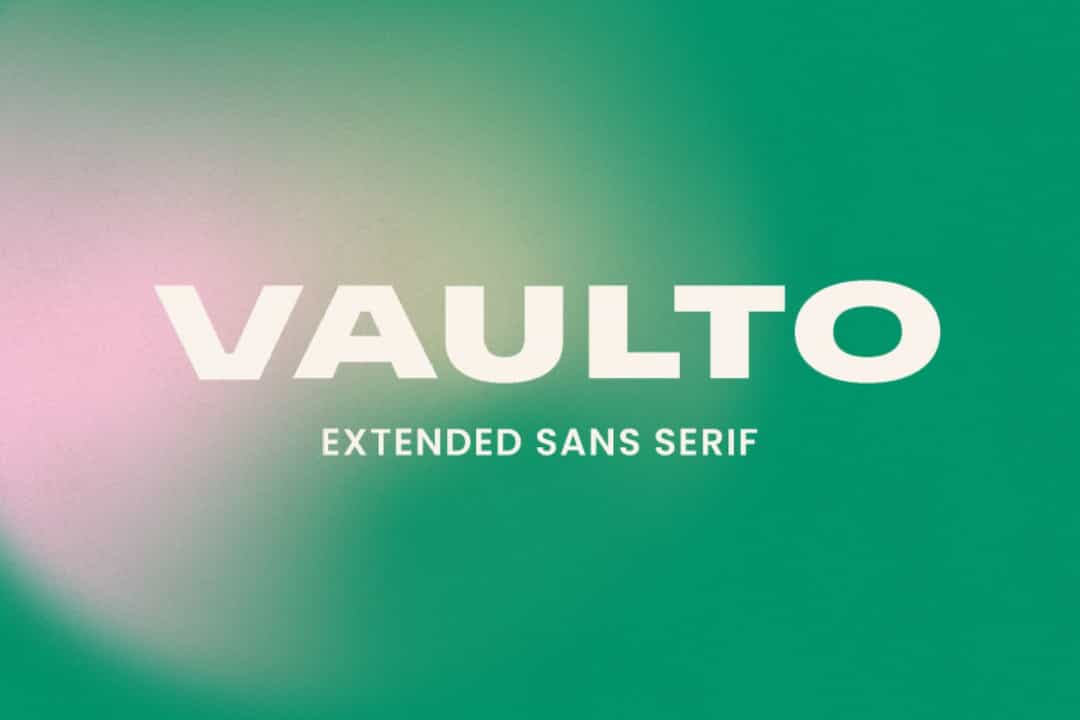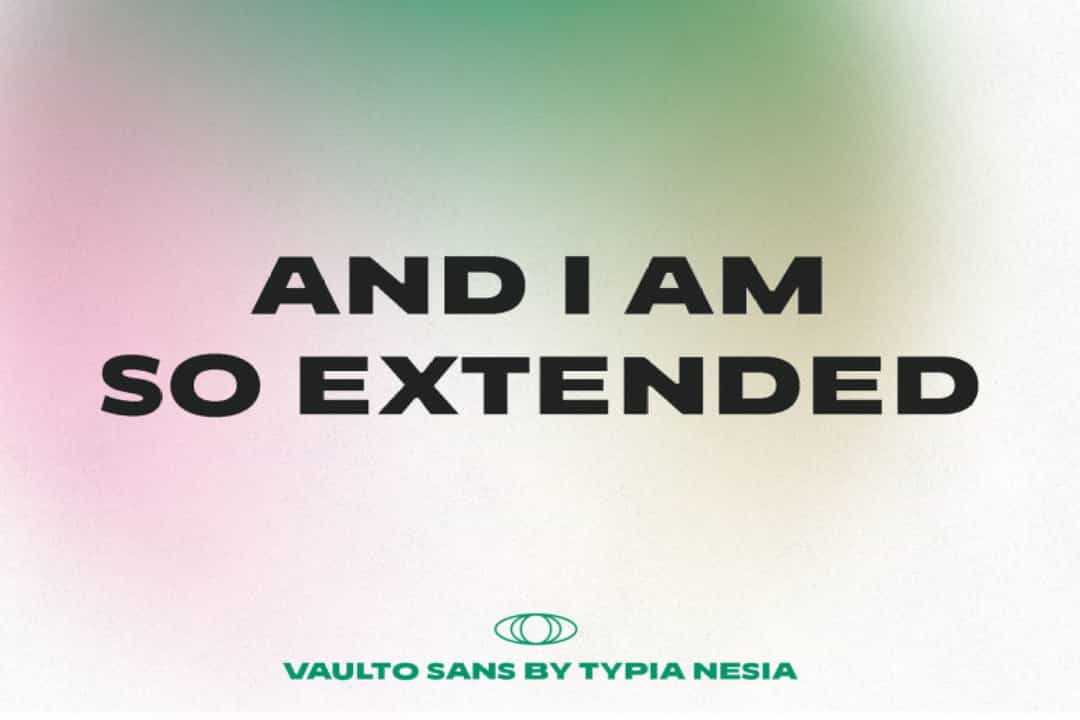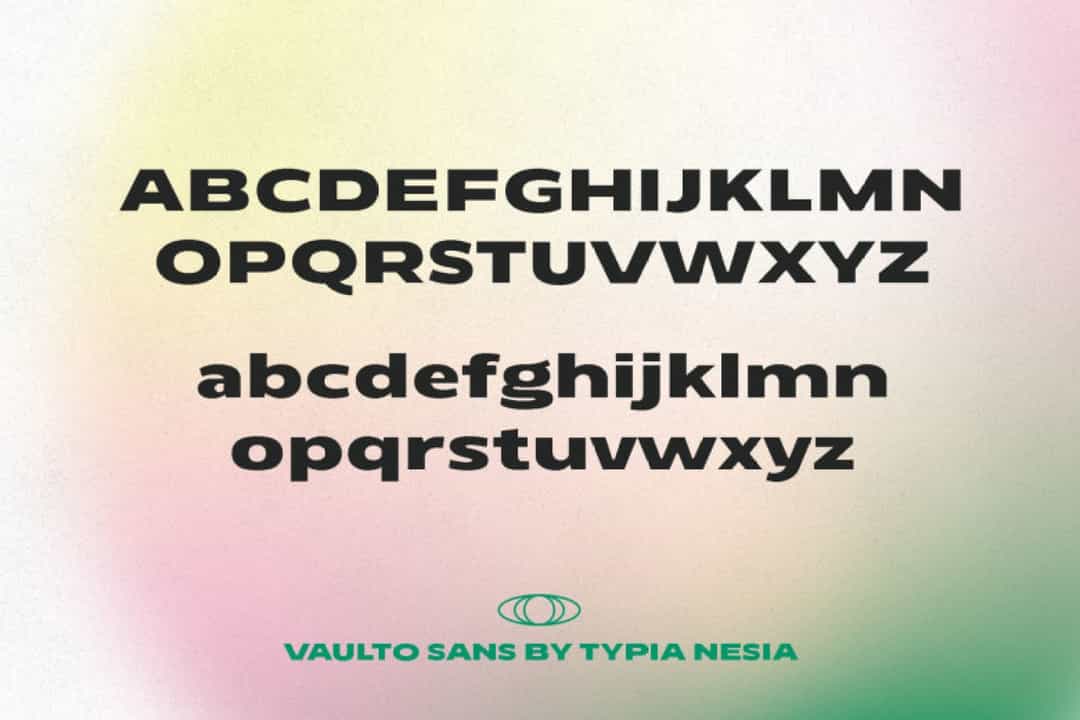
Vaulto Black Extension Font features an elegant, unpretentious sans-serif font designed for use across various projects and tasks. Add this versatile font to your projects now to see its potential!